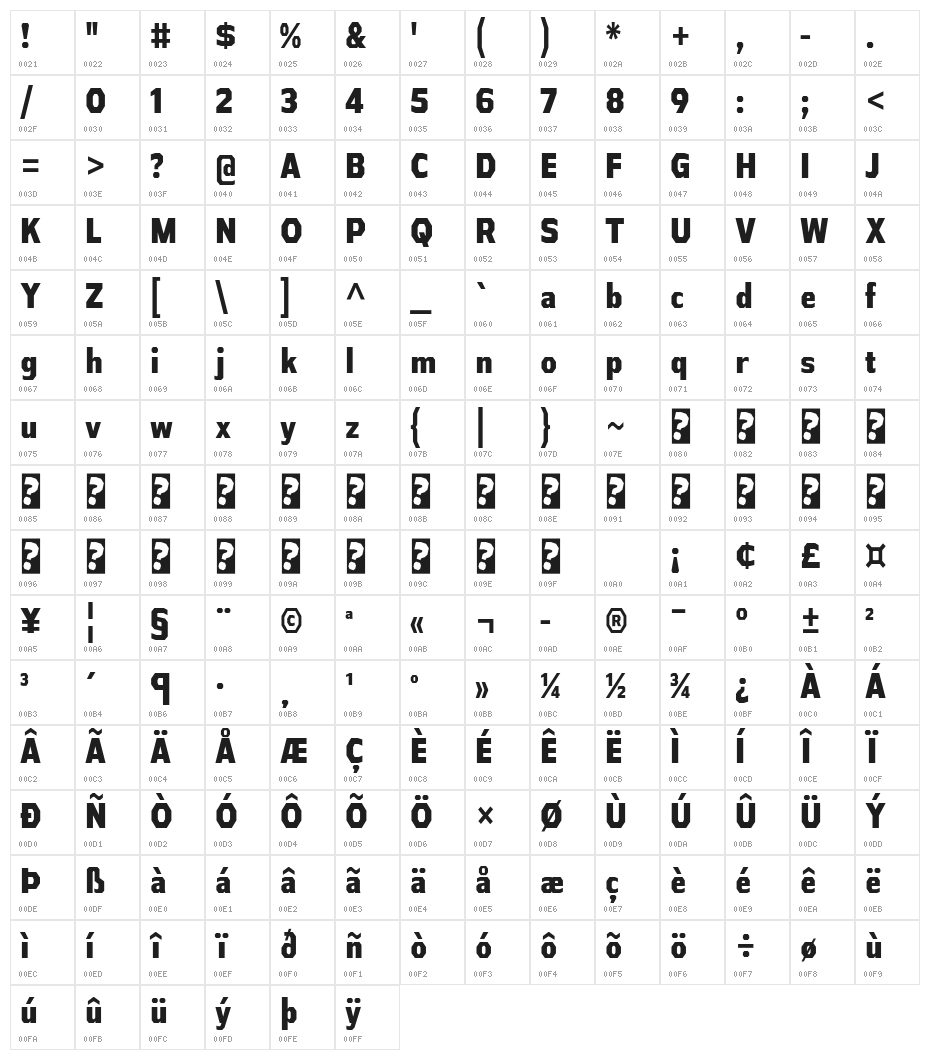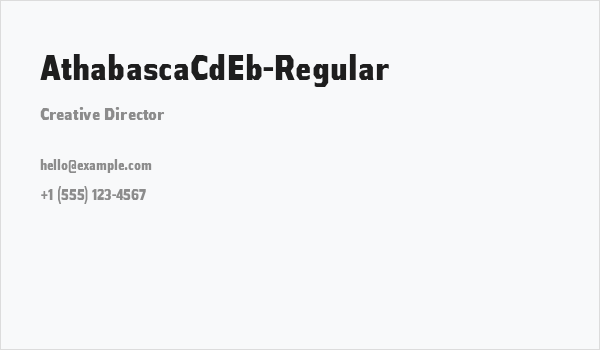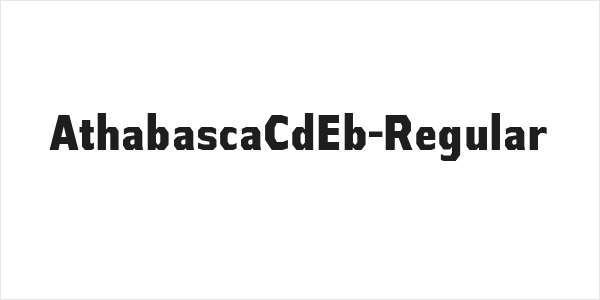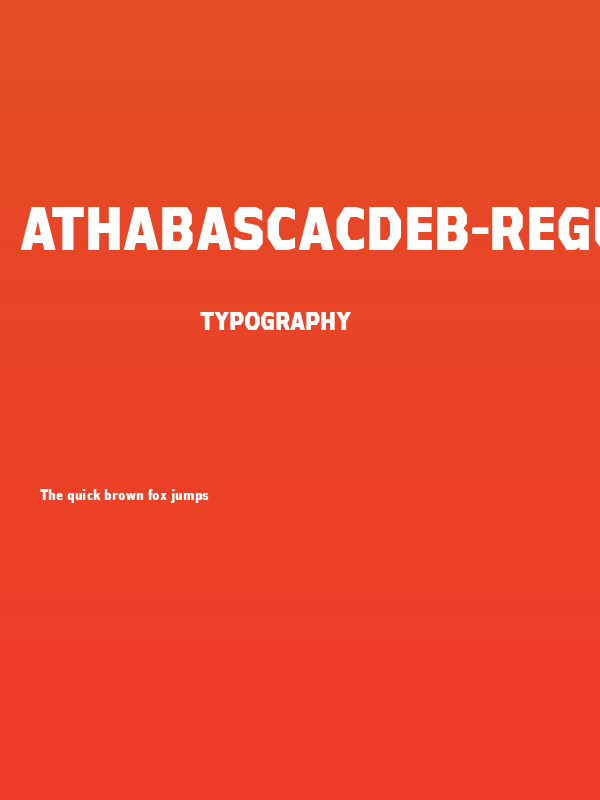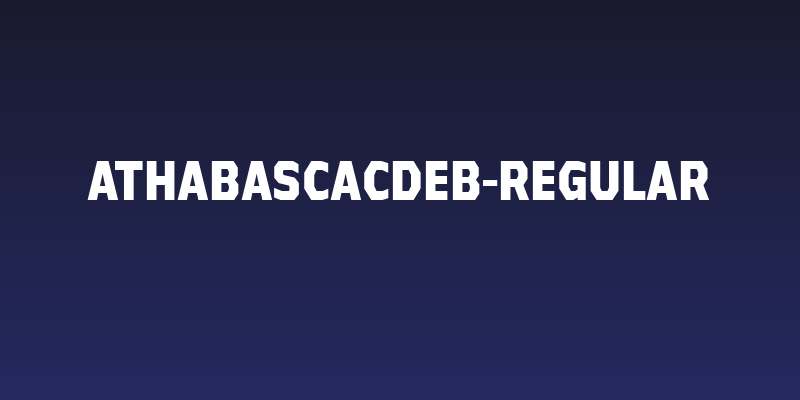
AthabascaCdEb-Regular Font
AthabascaCdEb-Regular Description
This font features a bold and commanding presence with its thick, blocky letterforms. The characters are designed with sharp angles and a geometric style, giving it a modern and industrial feel. The uppercase and lowercase letters maintain a consistent weight, providing a uniform appearance across the board. Numbers and special characters are crafted with the same boldness, ensuring readability and impact. The overall design is clean and straightforward, making it suitable for attention-grabbing headlines and titles.
Proposed ProjectsIdeal for branding, posters, headlines, and signage where a strong visual impact is needed.